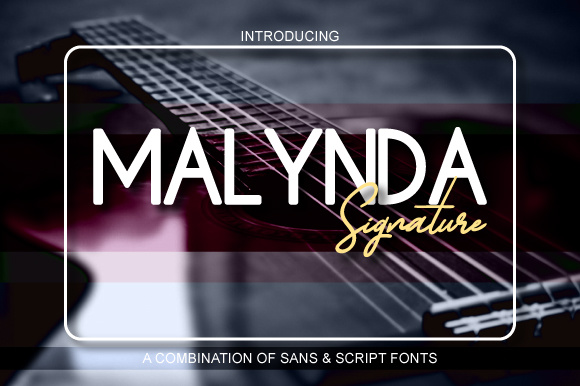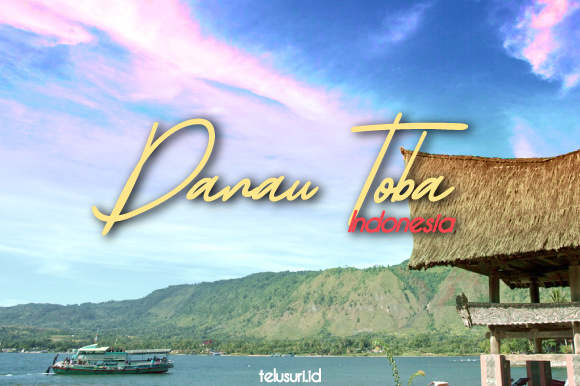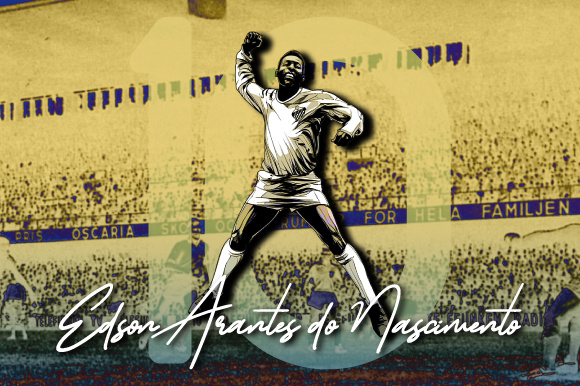
Malynda Duo Font
About Malynda Duo Font
Malynda is a combination of sans and script signature fonts, including a regular, italic, and signature version. With this beautiful combination, Malynda will give a unique feel to your design. Malynda can be used for various purposes such as: logos, digital art, product packaging, wedding invitations, branding, and more.